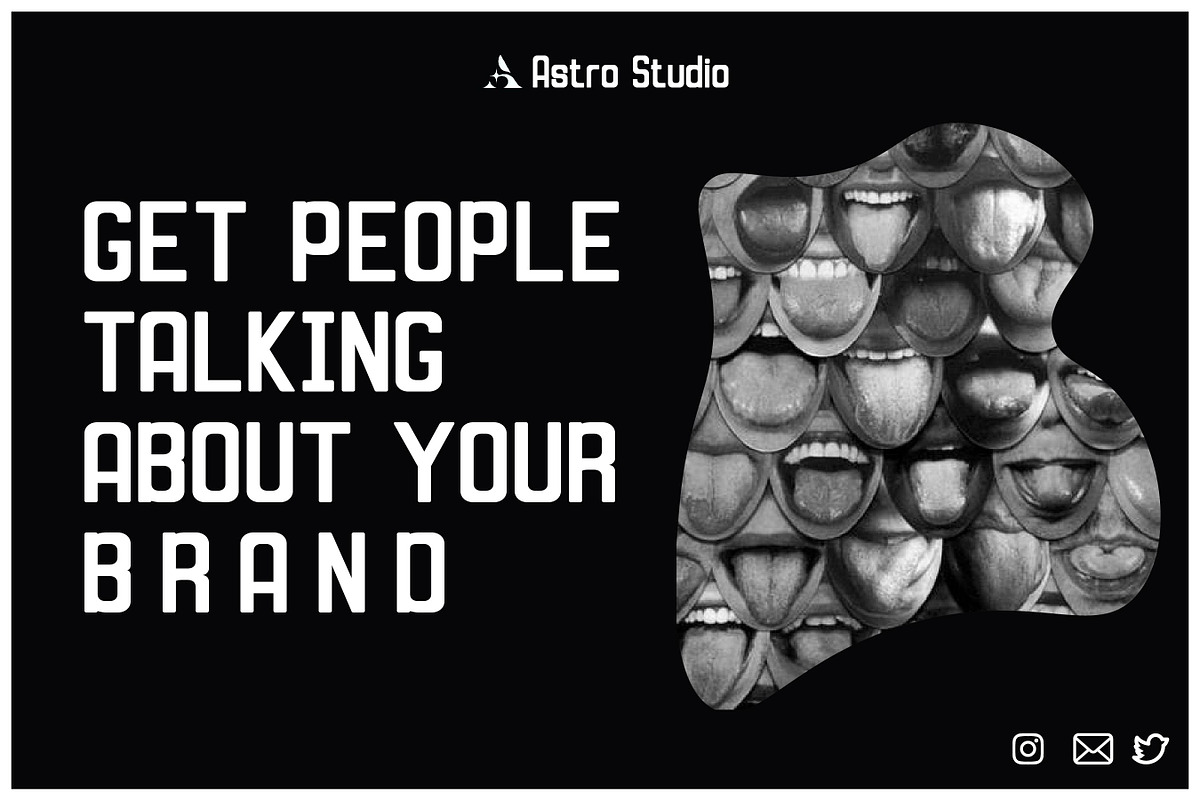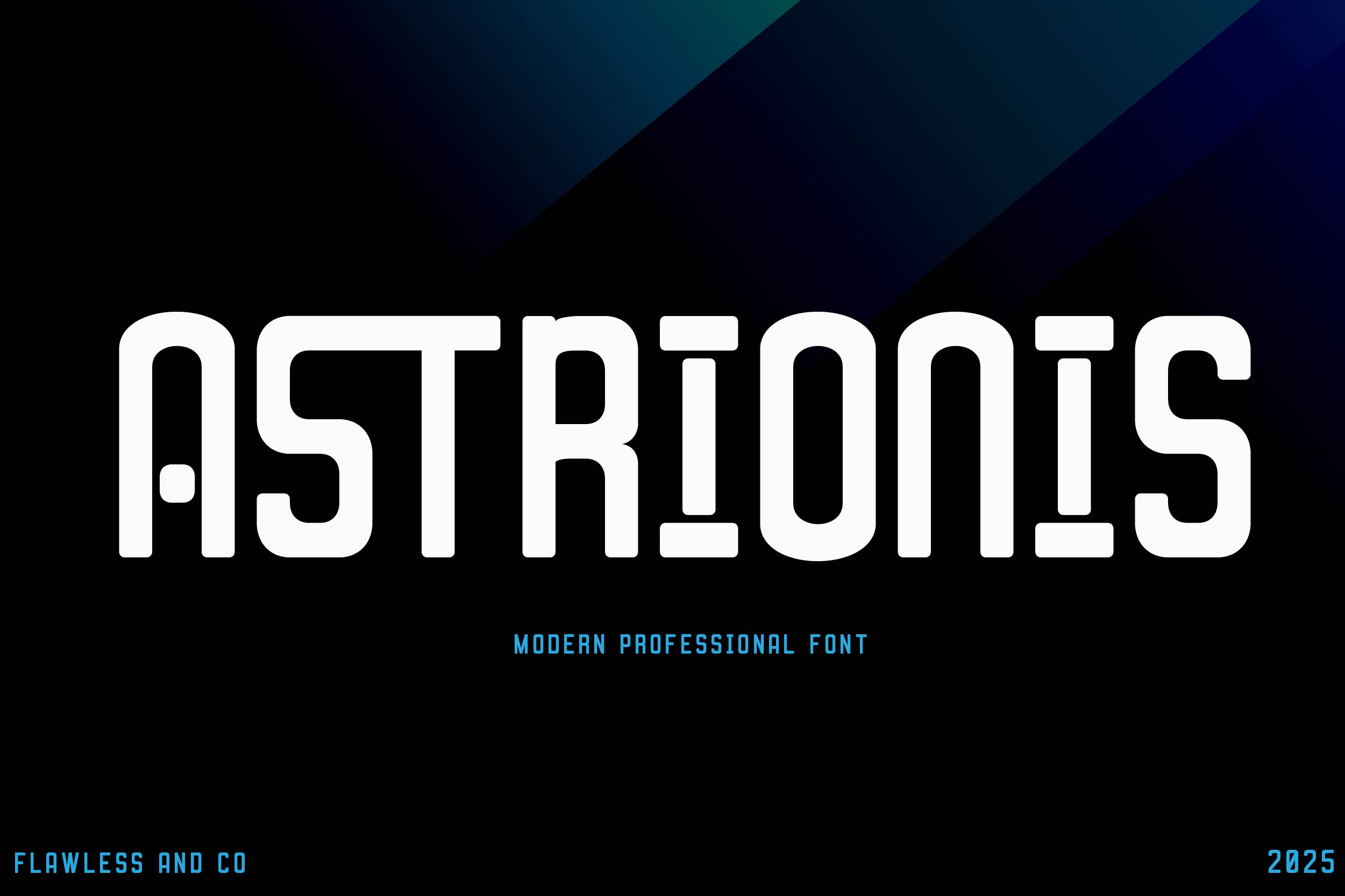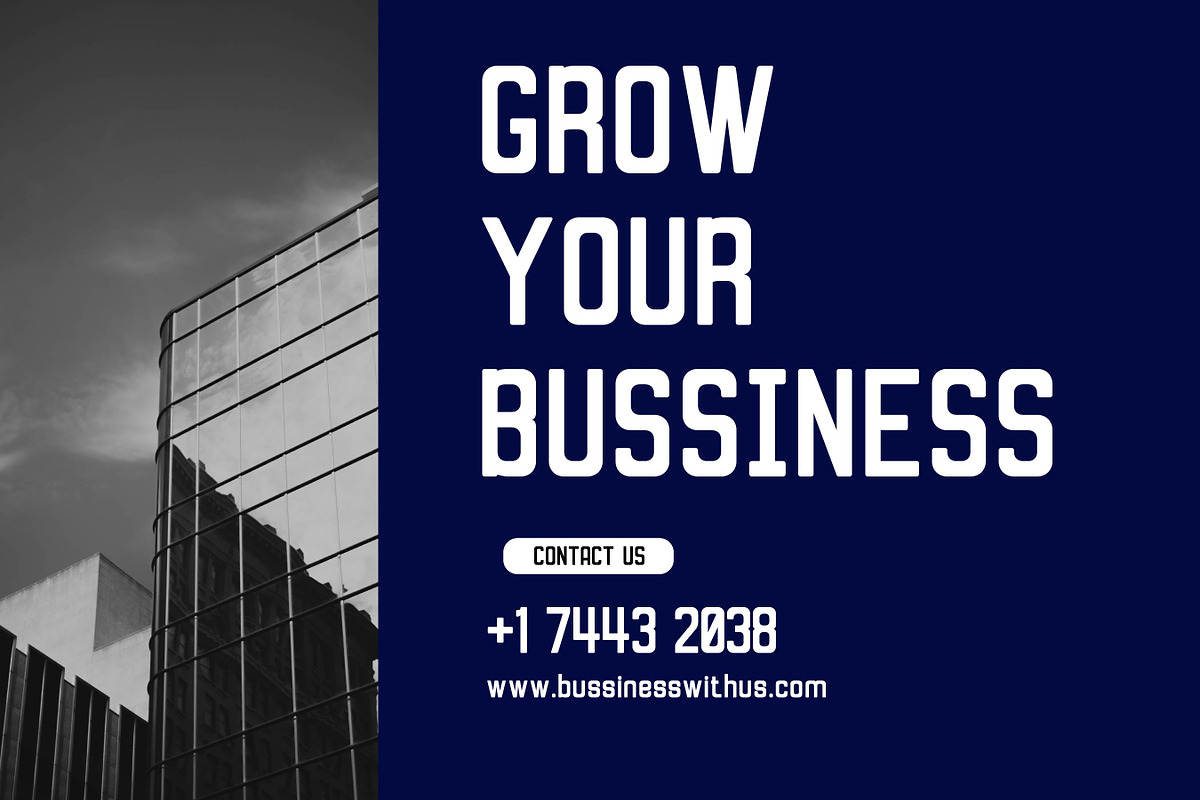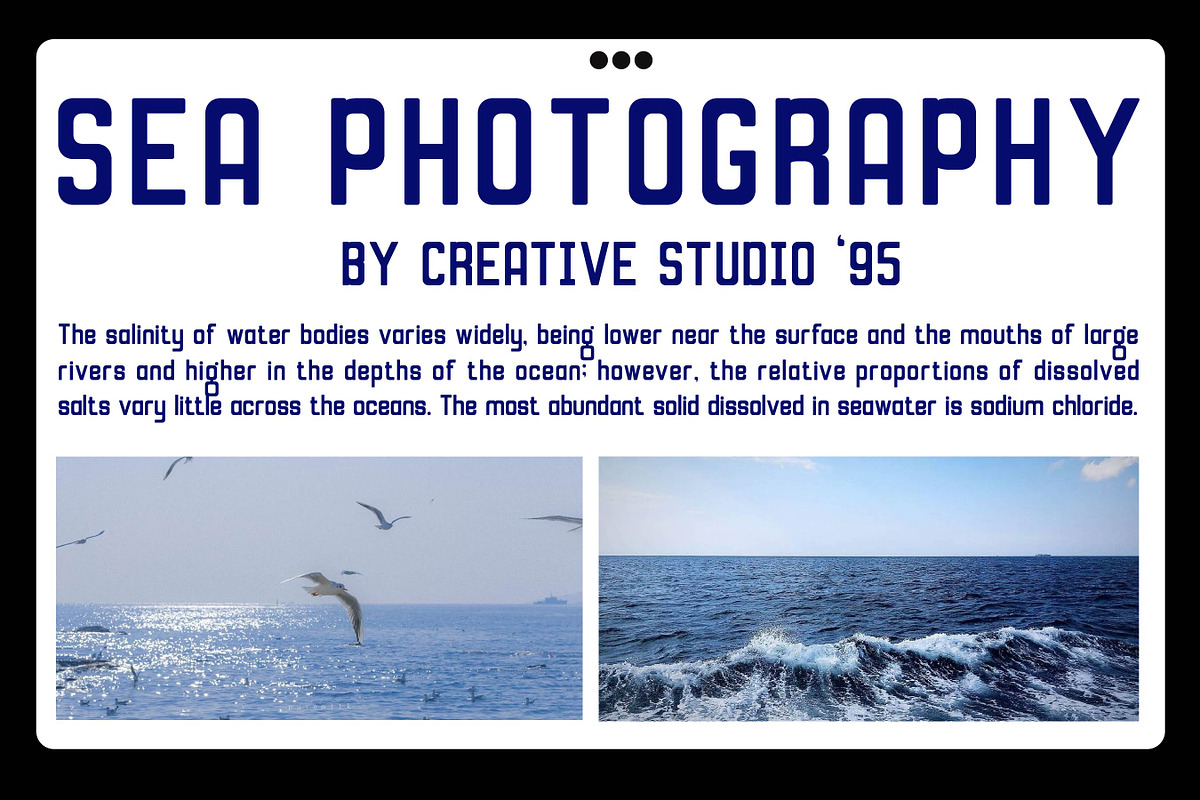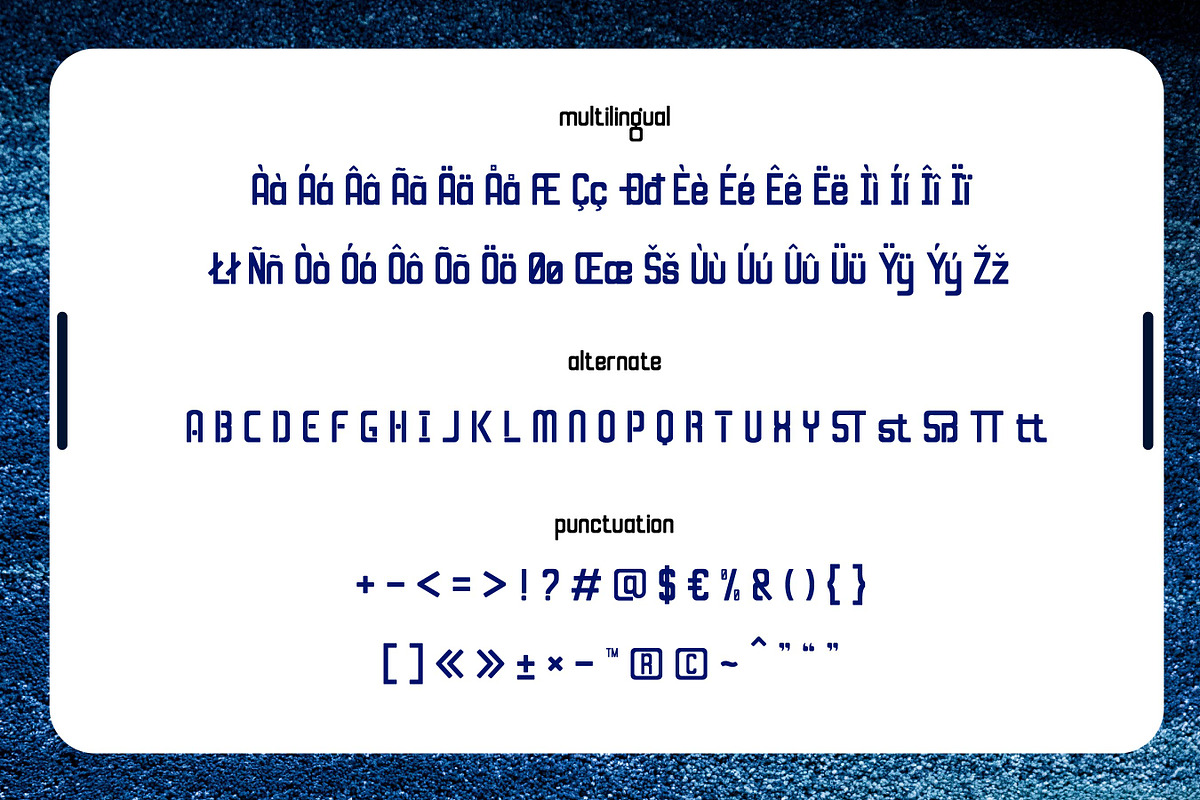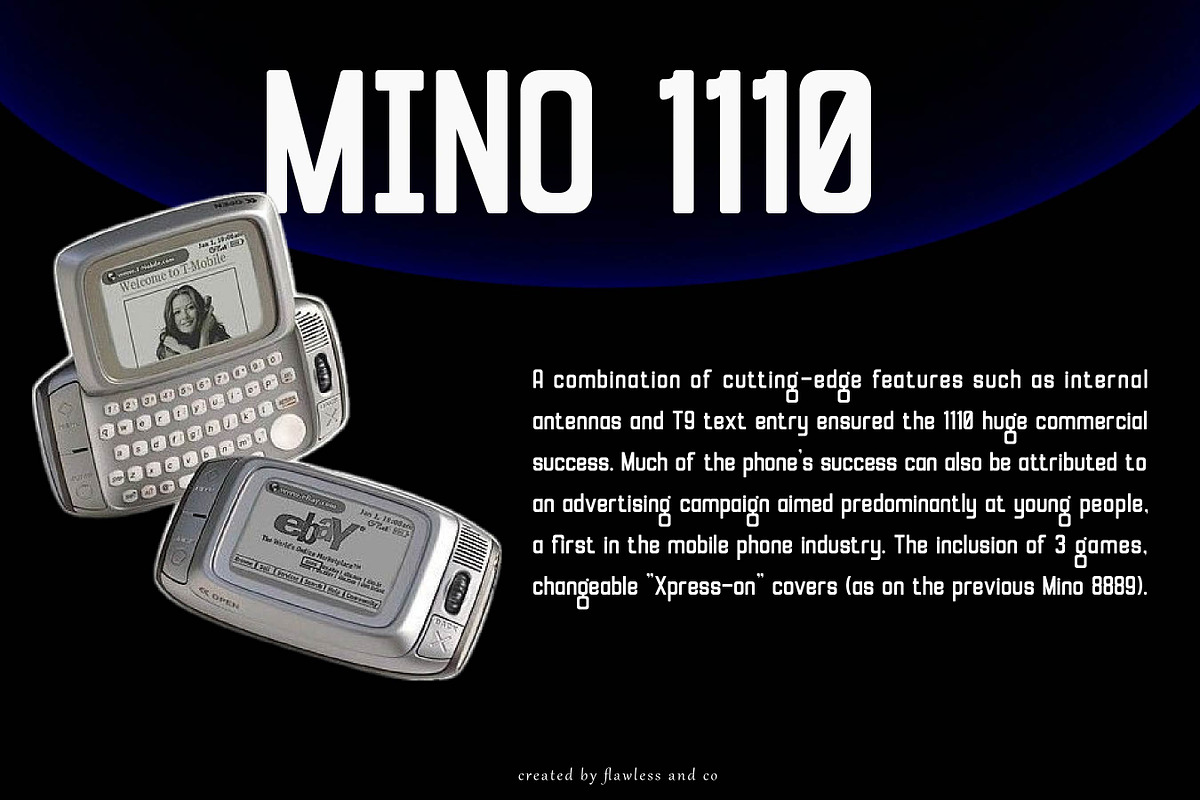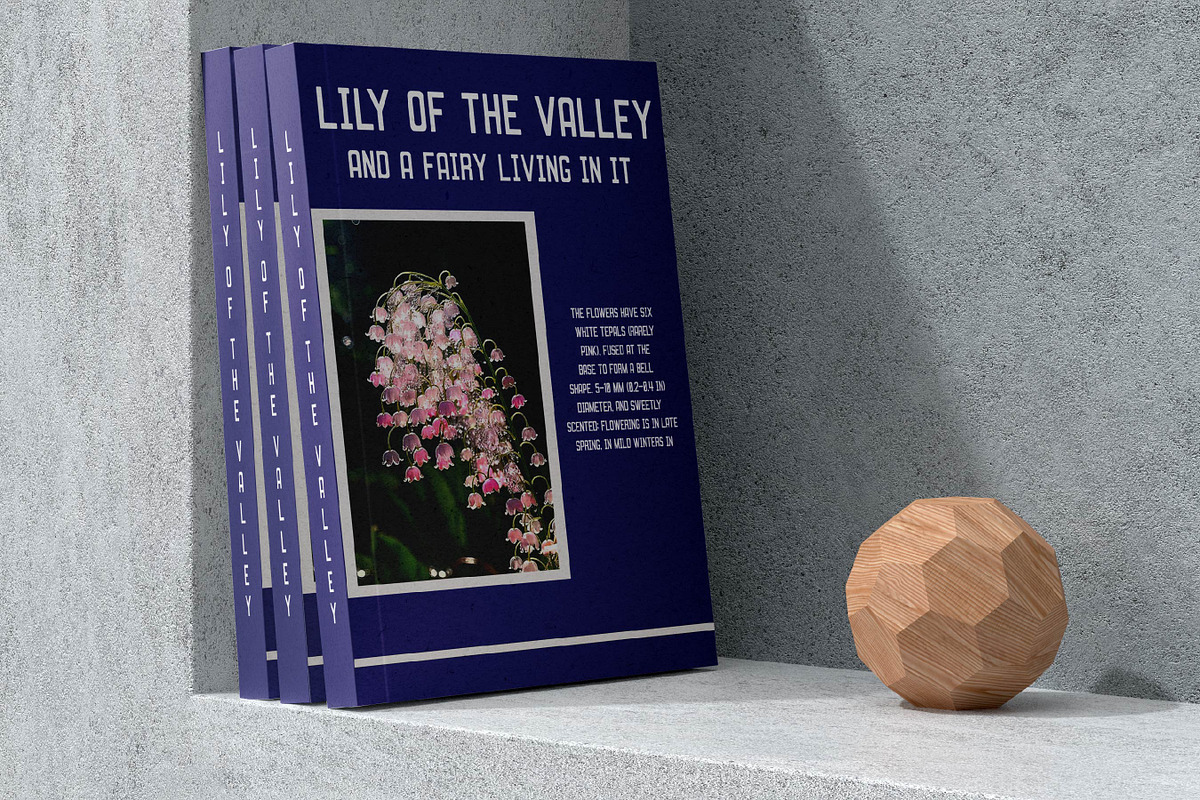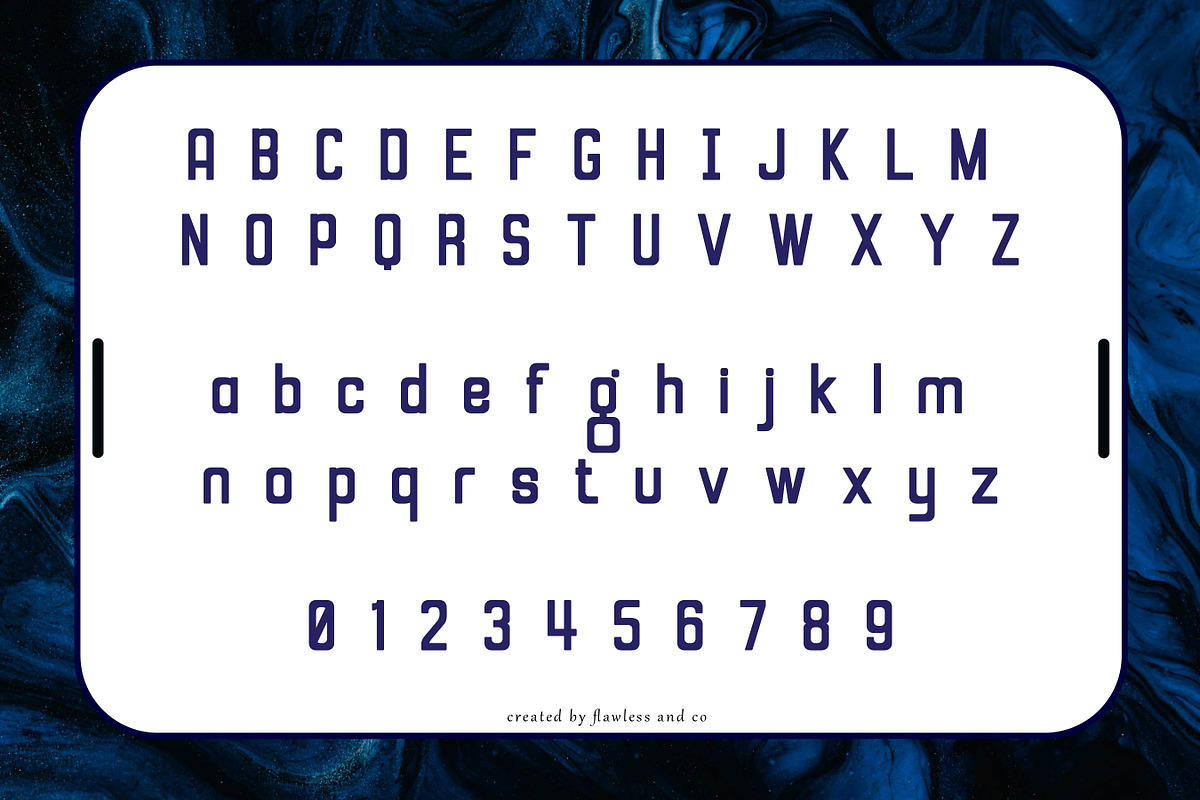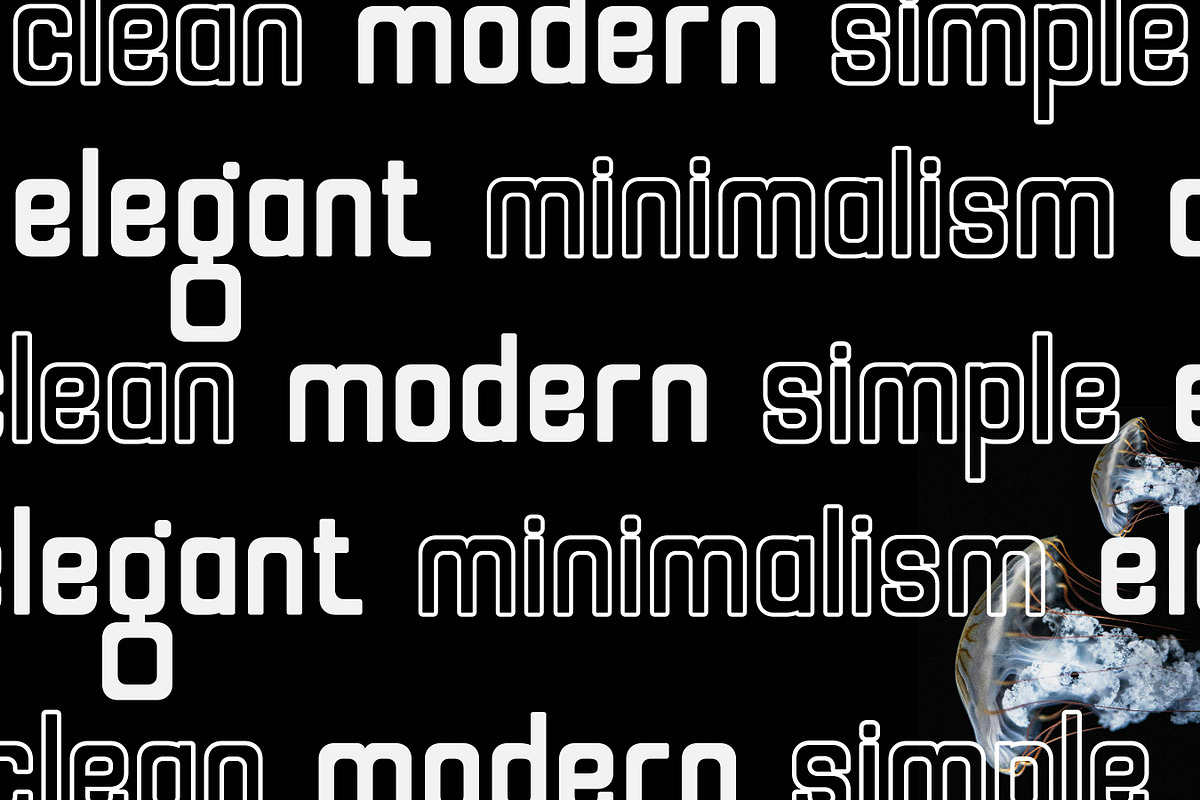
Astrionis - Futuristic Font
Astrionis is a futuristic display font that embodies the essence of sci-fi and space-age aesthetics. With sleek lines, geometric shapes, and a bold digital look, this font is perfect for projects that aim to convey a sophisticated, high-tech, and visionary feel. Suitable for sci-fi movie titles, game interfaces, tech branding, posters, and digital artwork that requires a forward-thinking edge.
Multilingual Uppercase alphabet A-Z Lowercase alphabet a-z Numbers 0-9 Some punctuation Alternates & Ligatures